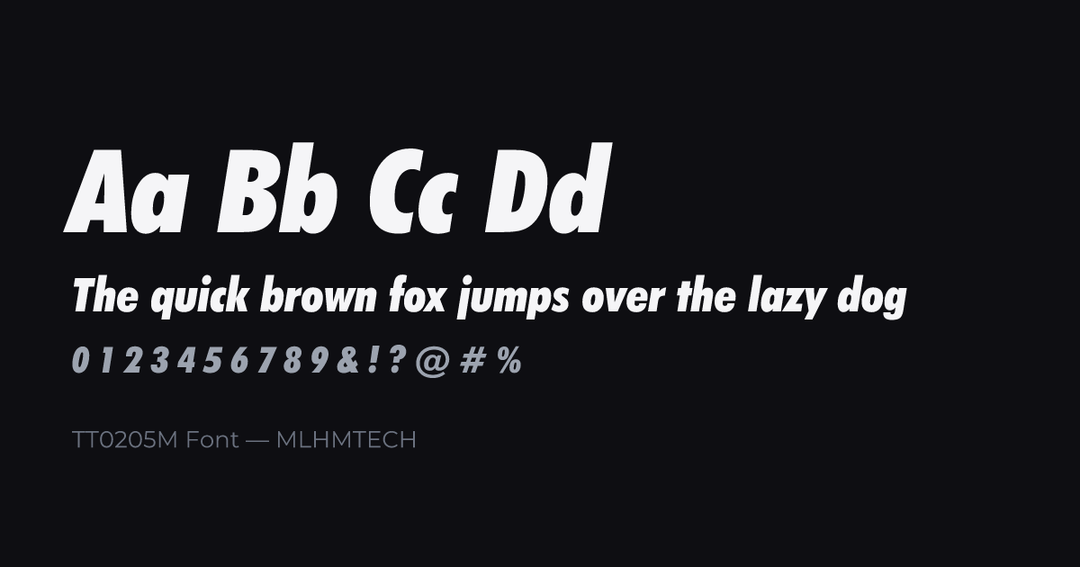
TT0205M Font
TT0205M is a handpicked TTF font ideal for video editing, graphic design, and creative projects. Its clean, modern style enhances titles and text overlays.
TT0205M is a versatile TrueType font that brings a clean, contemporary look to your projects. Whether you're editing videos, designing graphics, or creating logos, this font adds a professional touch. Its legible characters and balanced proportions make it suitable for both headings and body text.
This font is part of a curated collection, ensuring high quality and uniqueness. It supports a wide range of characters, making it flexible for various languages and design needs. Use it to create eye-catching titles, lower thirds, or any text element that requires clarity and style.